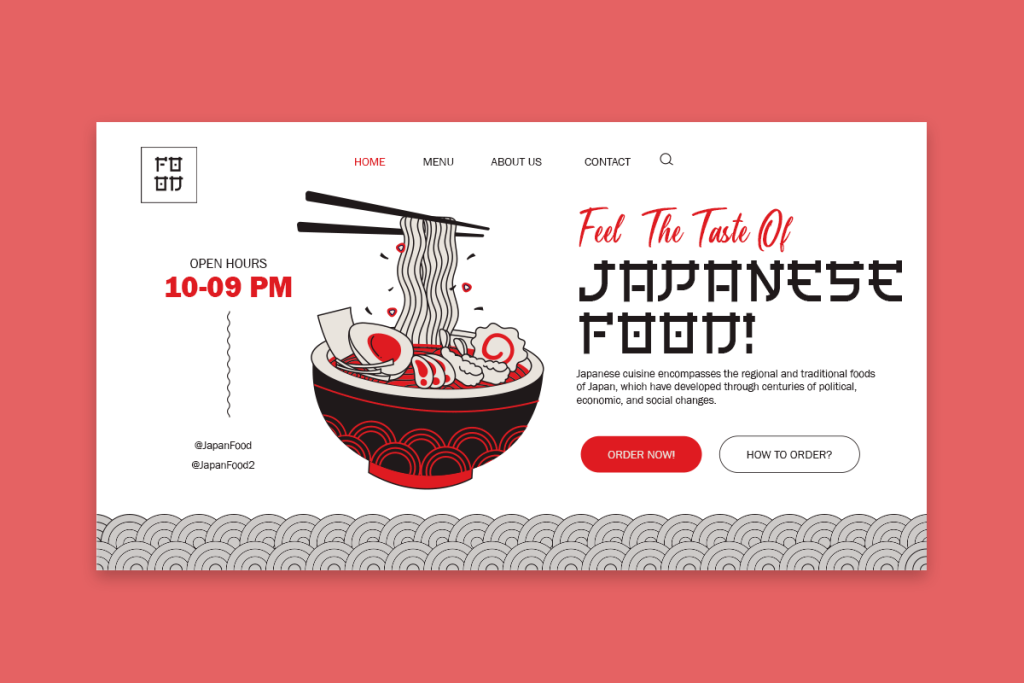
Add an authentic, stylish touch to your designs! Noto is a global font collection for writing in all modern and ancient languages. Noto Sans JP is an unmodulated ("sans serif") design for the Japanese language and other languages used in Japan.
It covers Hiragana, Katakana and Kanji. It also supports Latin, Cyrillic, Greek and Hangul. It has multiple weights.
Japanese-style fonts bring a unique blend of tradition and modernity to design projects, making them a popular choice for businesses and creatives alike. Explore a curated list of 40 free Japanese fonts, perfect for any project, showcasing styles from traditional to modern that elevate your design with Japanese Fonts. 105 free fonts Fonts epecially suitable for creating the perfect Japanese inspired artwork, designing menus, restaurant and store logos or banners.
These are not Japanese characters but fonts that are designed by taking inspiration from hiragana, a type of syllabic writing in Japanese such as "Katsumi", which literally means victorious beauty, is the perfect font for Japanese. Whether you're aiming for something minimalist or you want to go all out, these Japanese fonts won't disappoint. Subasa - Modern Japanese Style Font Subasa is a modern Japanese style font with a versatile design that goes perfectly well with anything, be it quote text, branding, marketing material, or logos.
A clean, versatile Japanese sans-serif, perfect for modern Japanese web design and readability across all Japanese texts. The font has a simple modern style and includes Standard English characters, numbers, punctuation, and symbols. This font is suitable for logos, quotes, heading, titles, and many more designs.